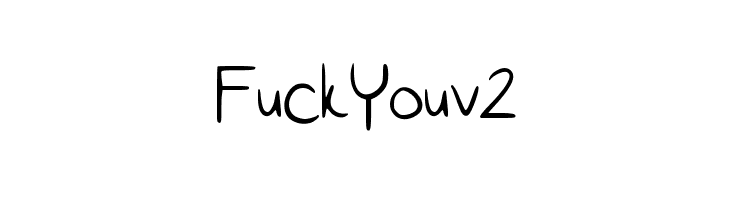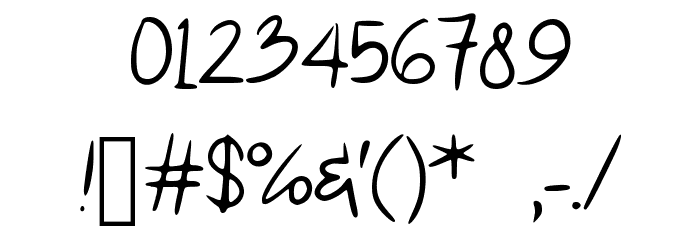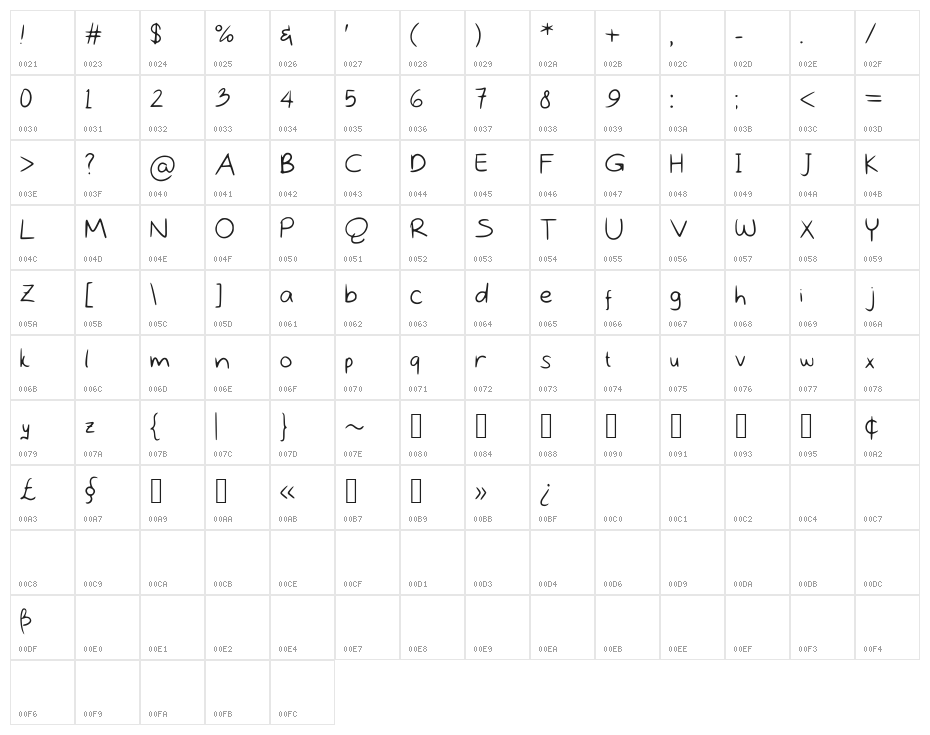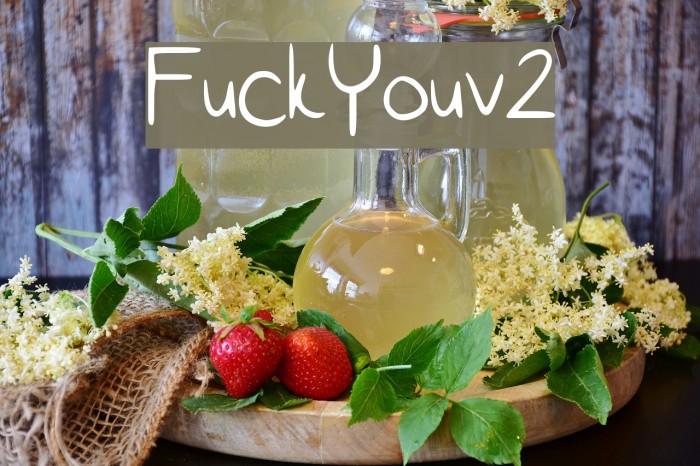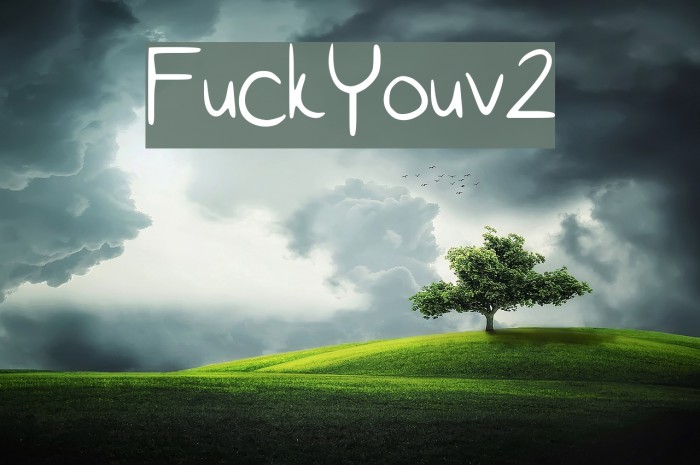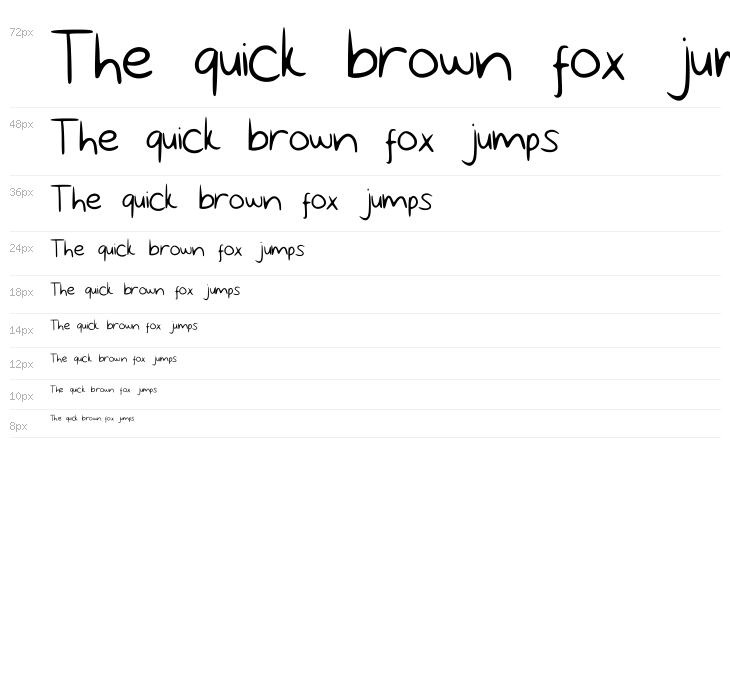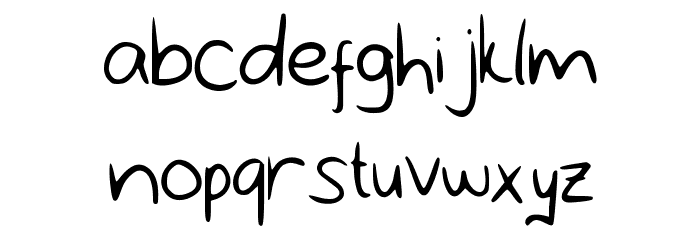
FuckYouv2 Font
FuckYouv2 Description
This playful and casual font features a handwritten style with a smooth, flowing appearance. The characters are slightly slanted, giving a dynamic and informal feel. The uppercase letters are bold and prominent, while the lowercase letters maintain a consistent, rounded form. Numbers and special characters follow the same casual aesthetic, making the font versatile for various uses. The strokes are consistent in width, providing a uniform look across all characters. This font is perfect for projects that require a personal touch or a relaxed vibe.